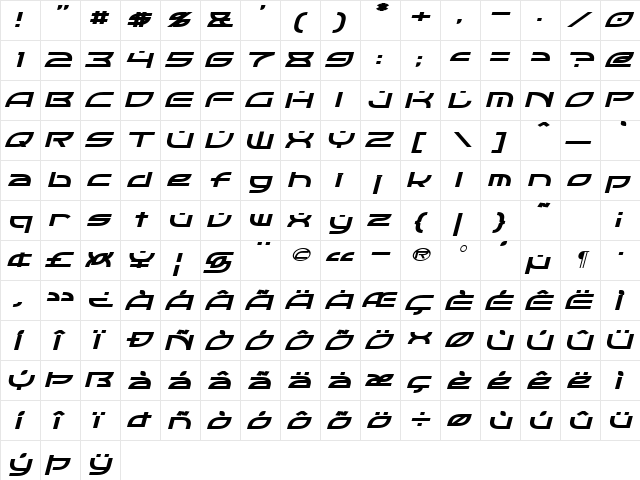
OpTic Italic
| Designer | Neale Davidson |
Design Context for OpTic Typeface
OpTic offers clean, dependable letterforms without strong stylistic allegiance, making it a practical choice for designers who need flexibility. The slanted form adds forward momentum and visual energy.
Pro Tip: Use OpTic for emphasis, pull quotes, and subheadings where its slanted energy can add rhythm to the layout.